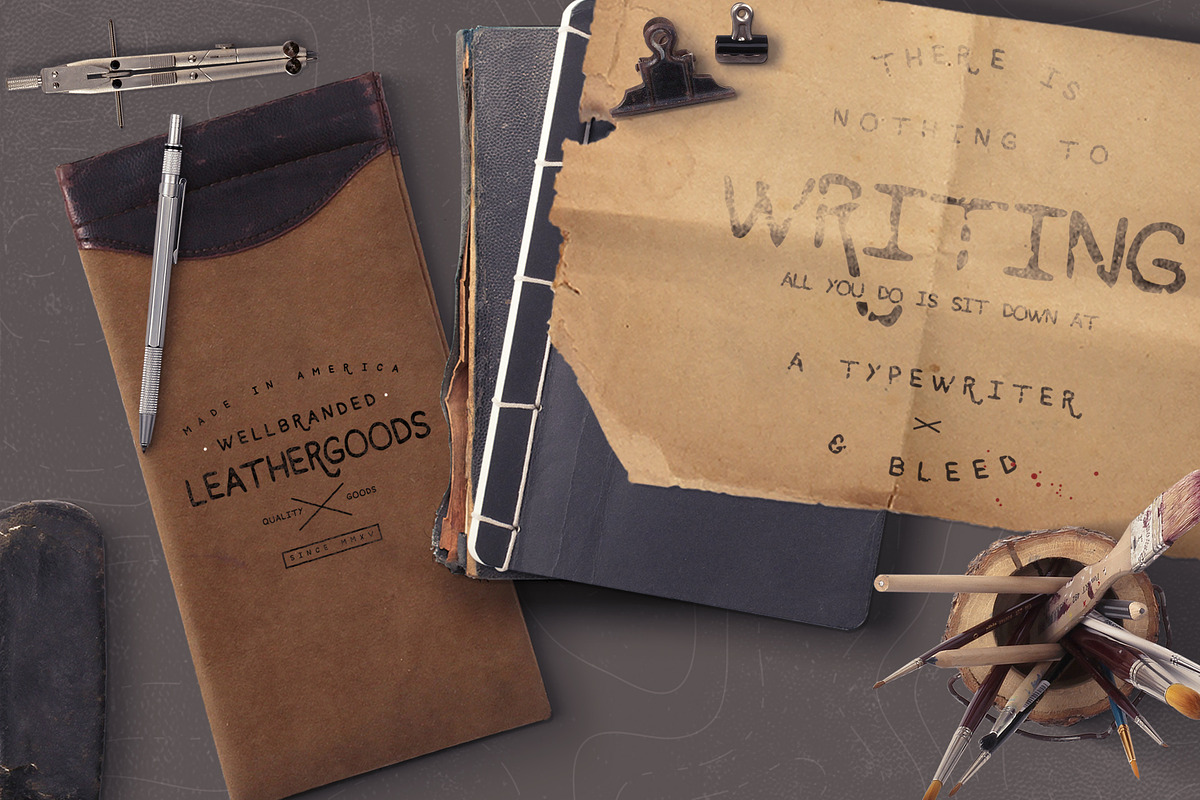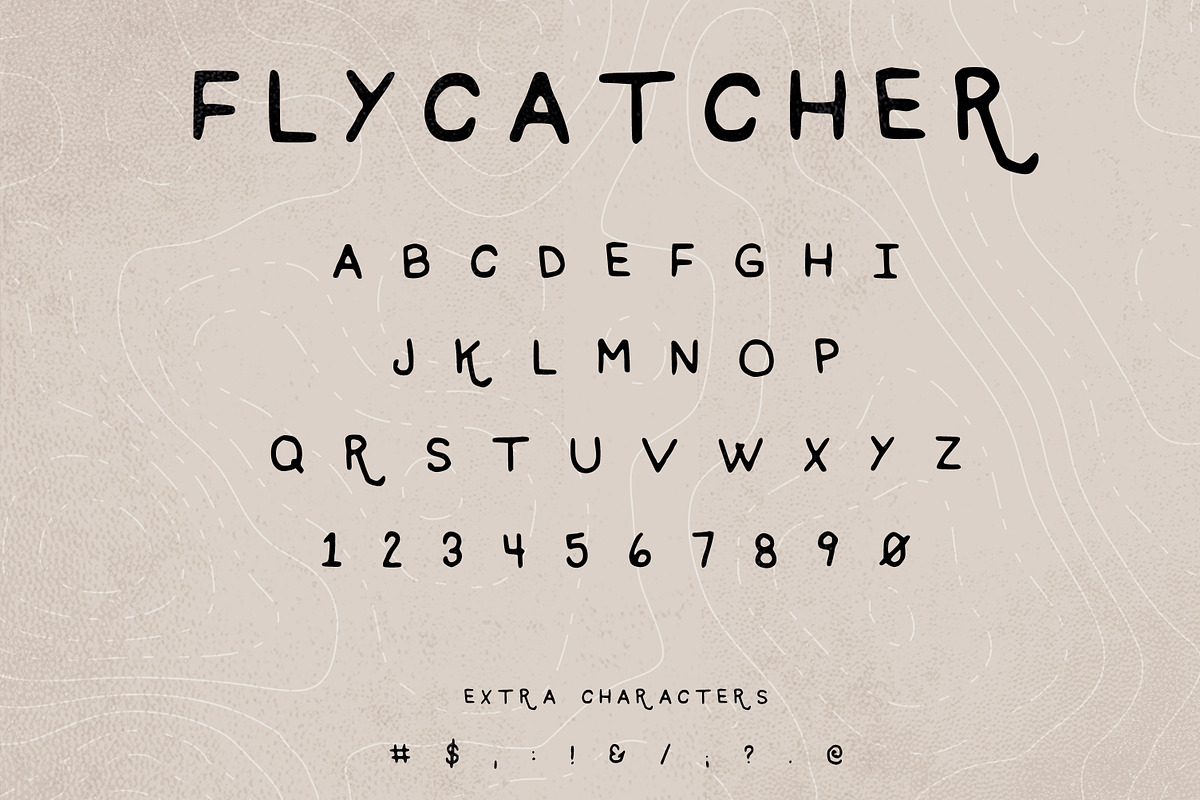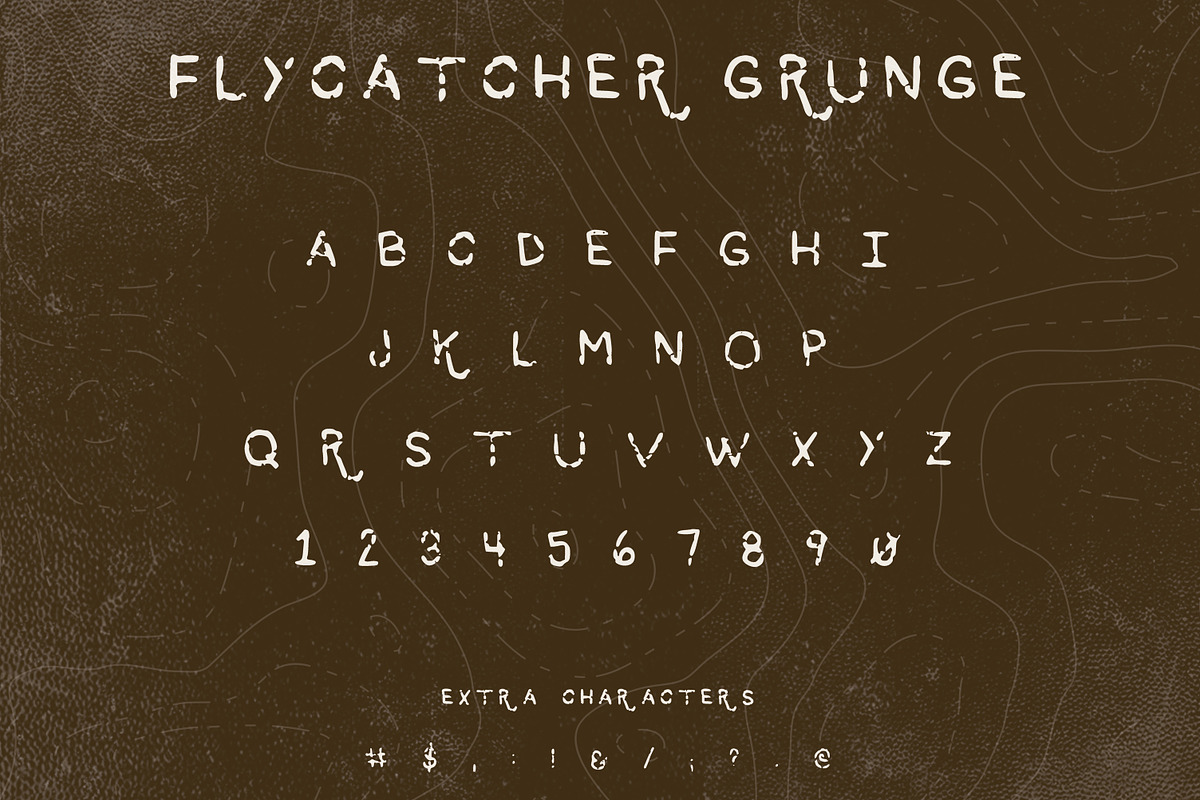
Flycatcher Font
Flycatcher Font by Flycatcher Design is a font selected for branding, posters, packaging, typography.
- It includes 26 characters, 10 numbers, and limited punctuation.
- Flycatcher Regular
- Flycatcher Grunge
Why Flycatcher Font is worth a look
Flycatcher Font by Flycatcher Design fits naturally into Branding, posters, packaging, typography.